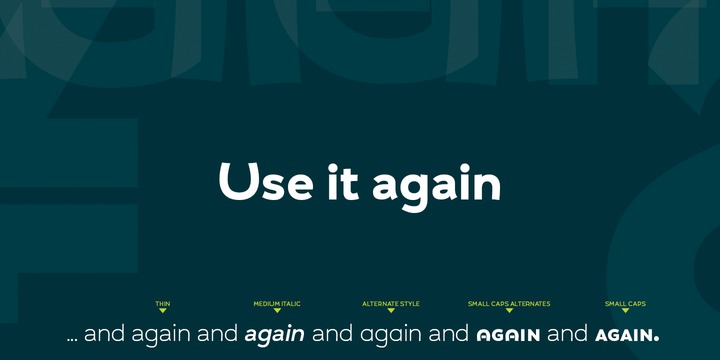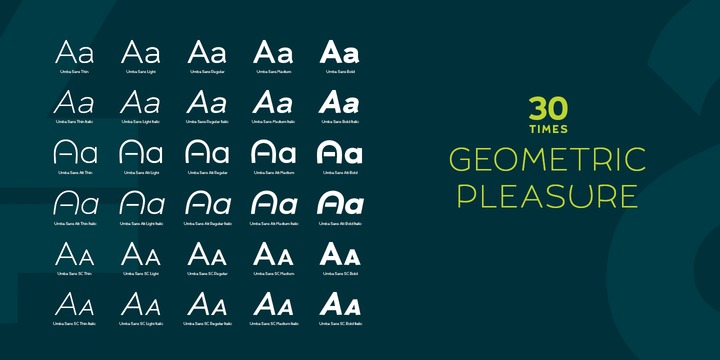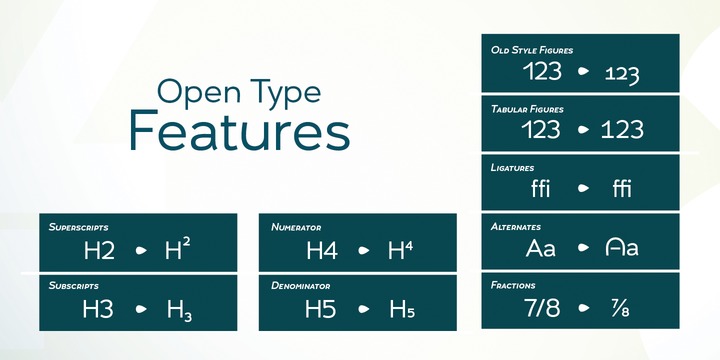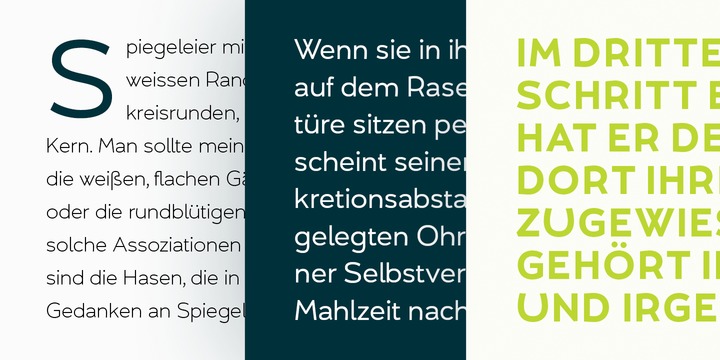
UMBA Sans Font Family
Introducing Scorno! It is designed and shared by Anita Jürgeleit. The wide shaped curves show a new aesthetic appeal in an unexpected pleasant way. Umba Sans fulfills your corporate design needs as well as your editorial demands and helps to push your design to the next level. Thirty styles from thin to bold and matching italics – as well as small caps and alternates – help you create a contemporary design. Umba Sans provides a wide range of variations. Your design may have many faces but it all matches together.